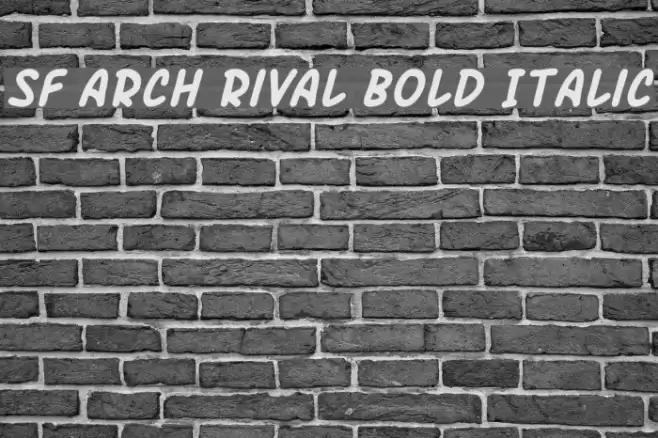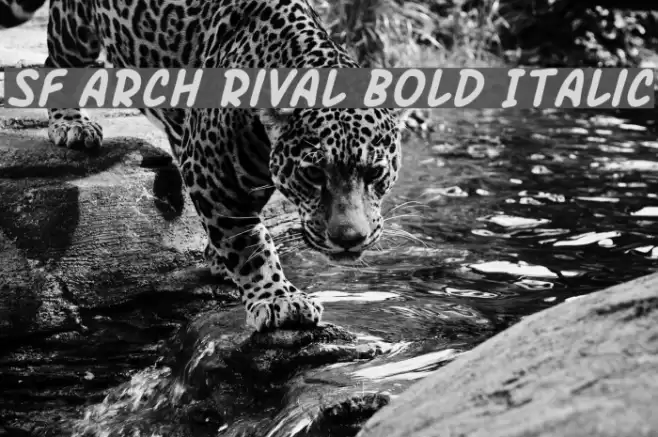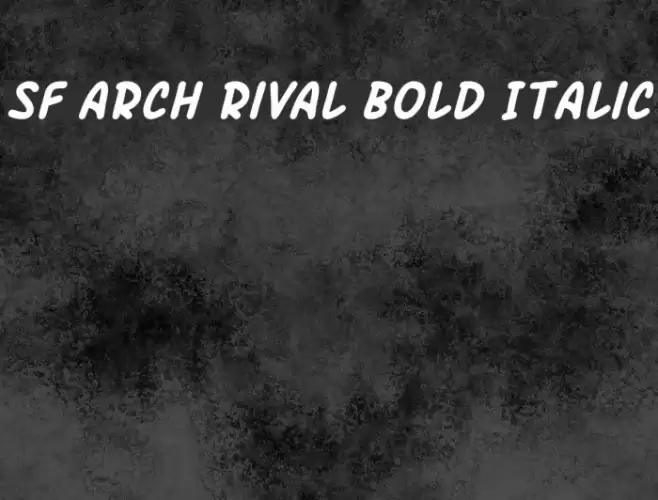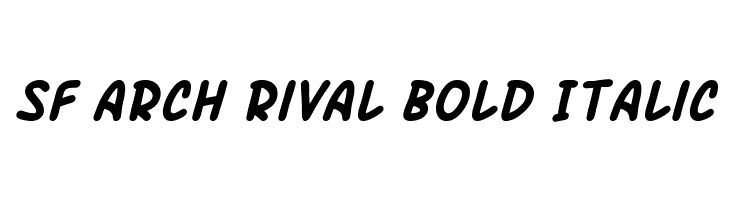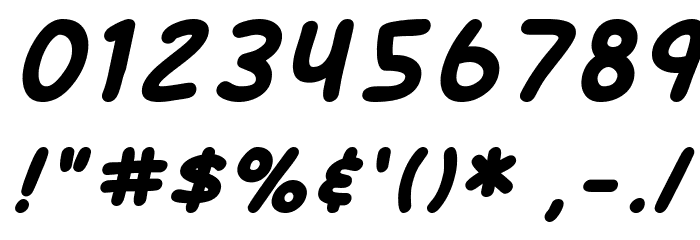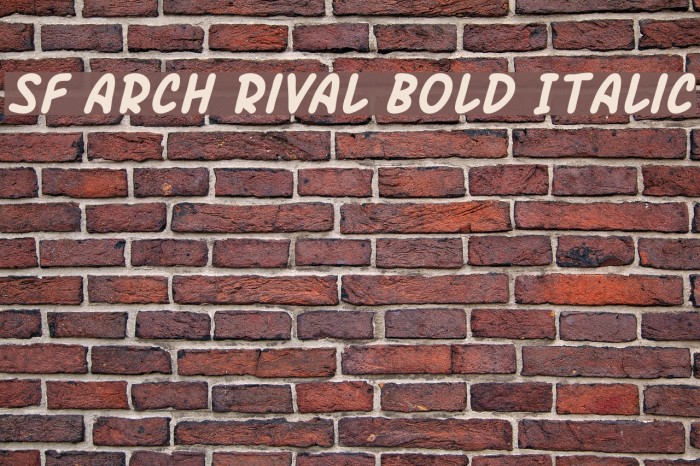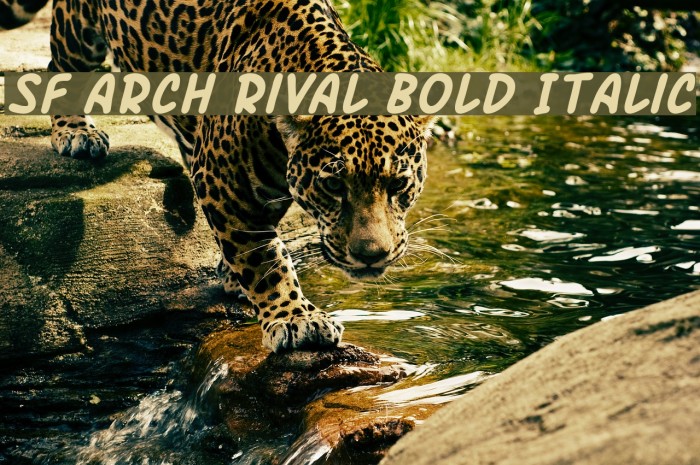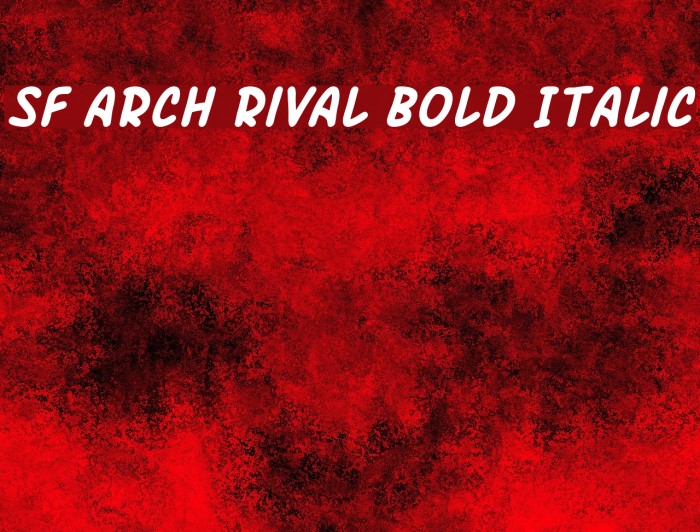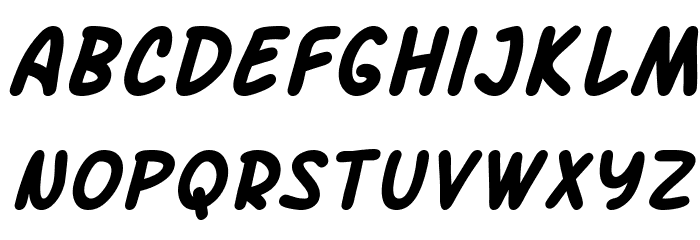
SF Arch Rival Bold Italic
This font features a bold and dynamic style with a playful, handwritten appearance. The letters are slightly slanted, giving an italicized effect, which adds to its energetic and informal look. The strokes are thick and consistent, providing a strong visual impact. The characters are rounded and smooth, contributing to a friendly and approachable feel. This font is well-suited for projects that require a casual and lively touch, such as children's books, playful branding, or informal invitations. The spacing between characters is normal, ensuring readability while maintaining its distinctive style.
A bold, italicized, and playful handwritten font with a strong visual impact.
- Proposed Projects: Ideal for children's books, playful branding, informal invitations, and casual posters.
- Overall Style: Playful